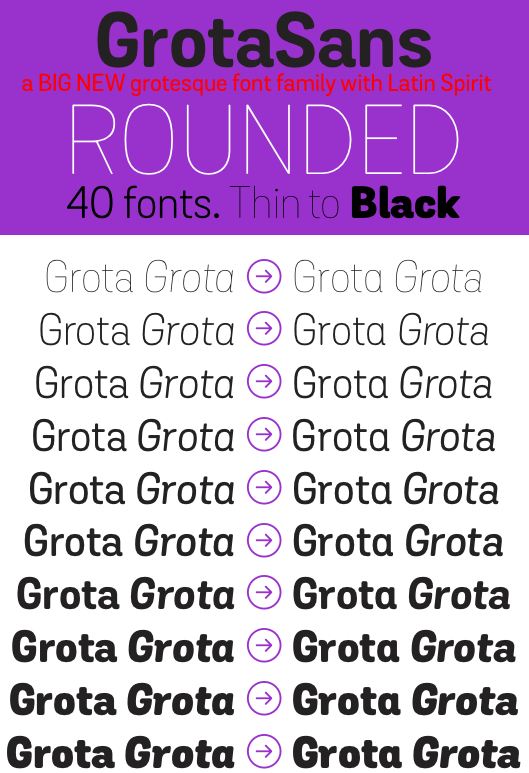
Grota is back in a new Sans and Rounded version. The COMPLETE family (Regular and Alt versions) consists of 40 fonts; 10 different weights with Italics. The Regular and Alt families are also available separately, each with 10 weights and Italics.
Grota Sans Rounded, designed by Eli Hernández and Daniel Hernández, is a grotesque font with Latin spirit. For print or web, the design is ideal for logos, brands, books, magazines, headlines, signage, etc.